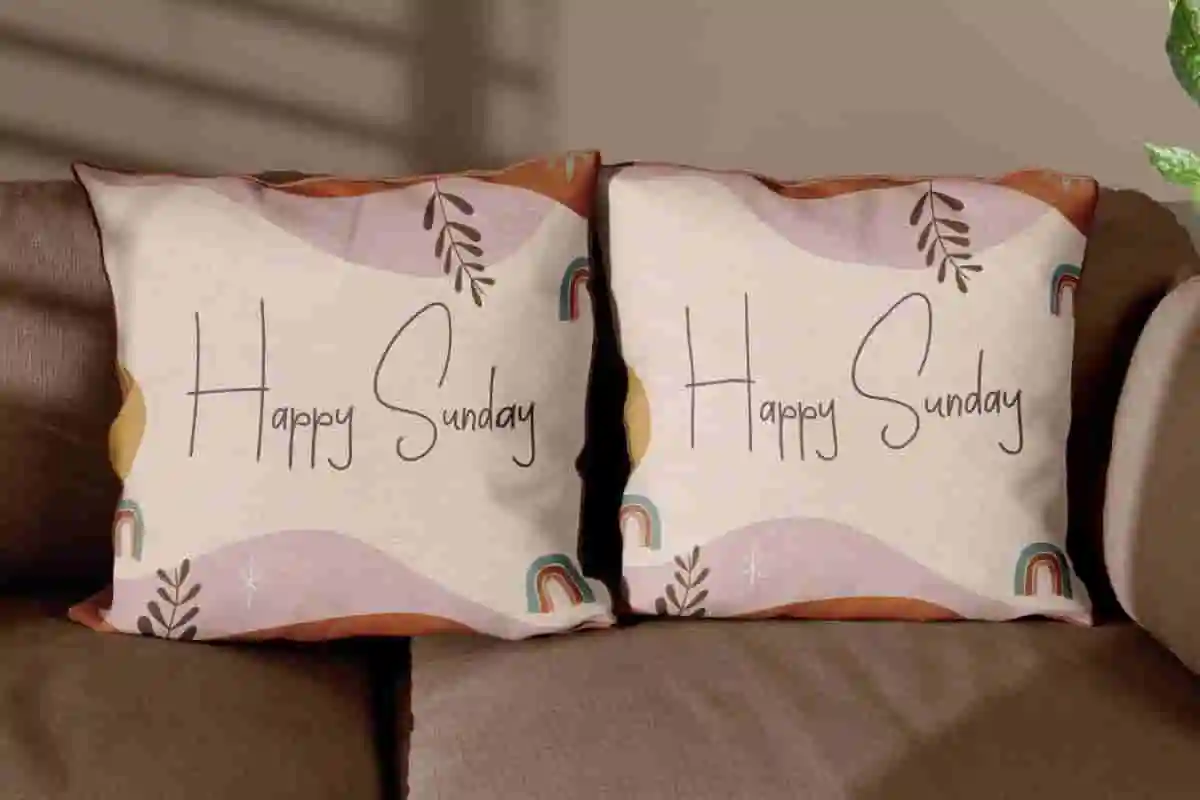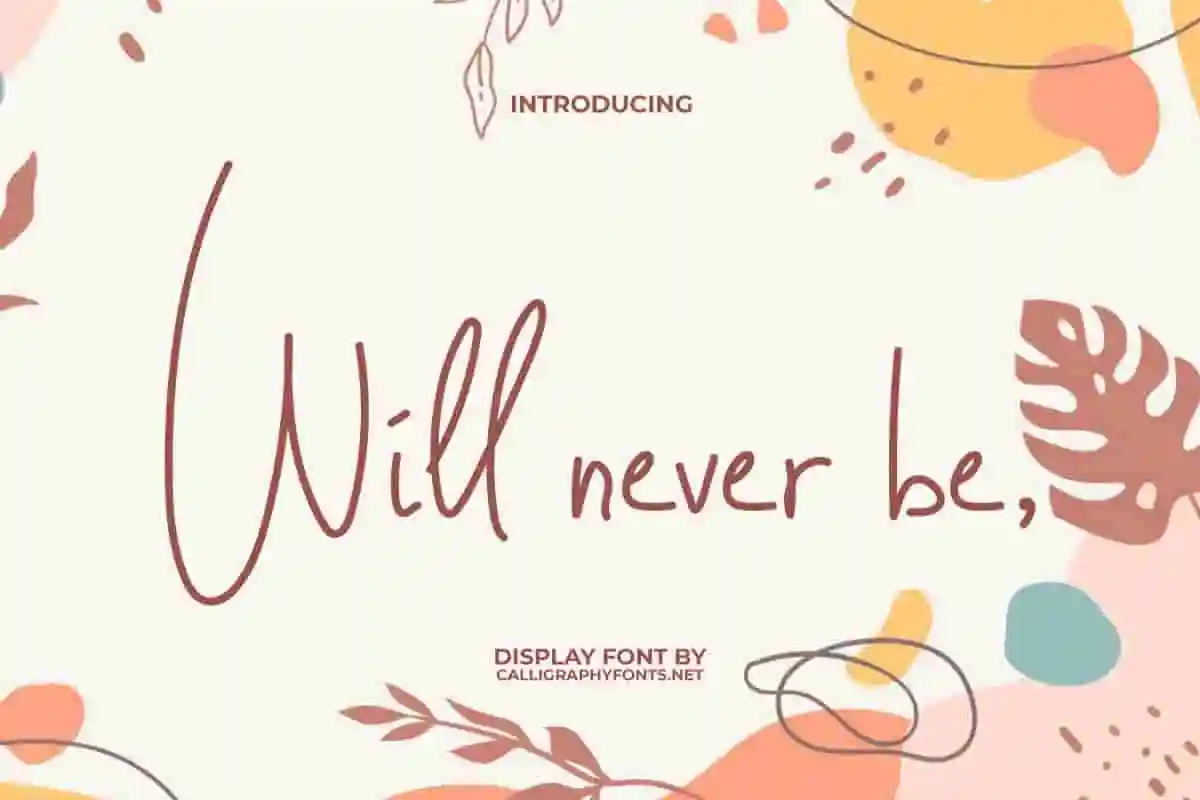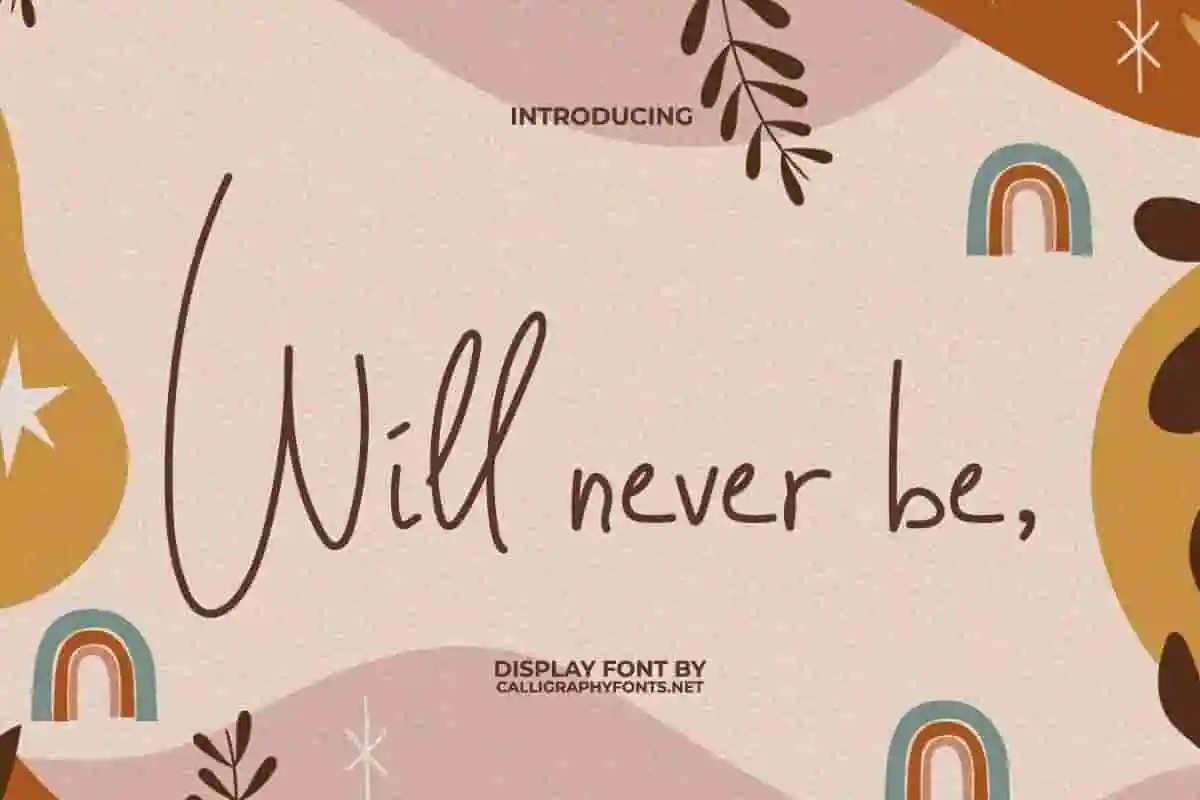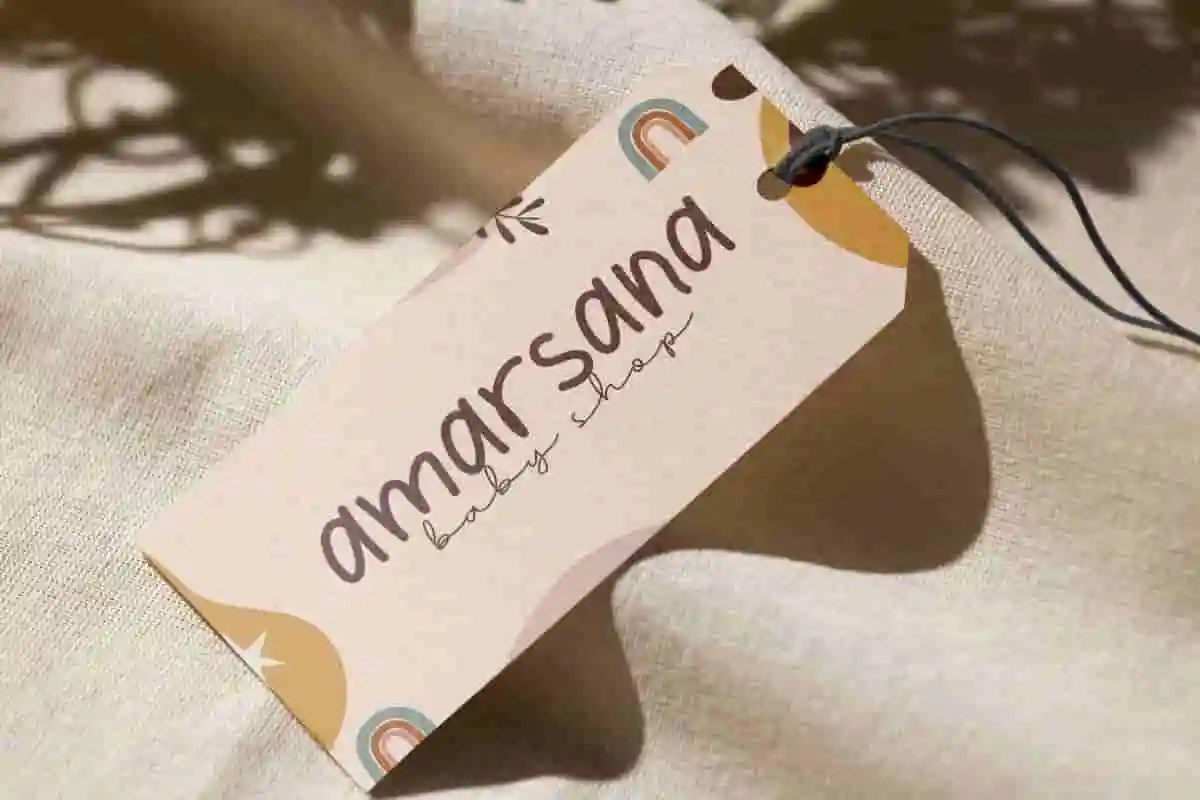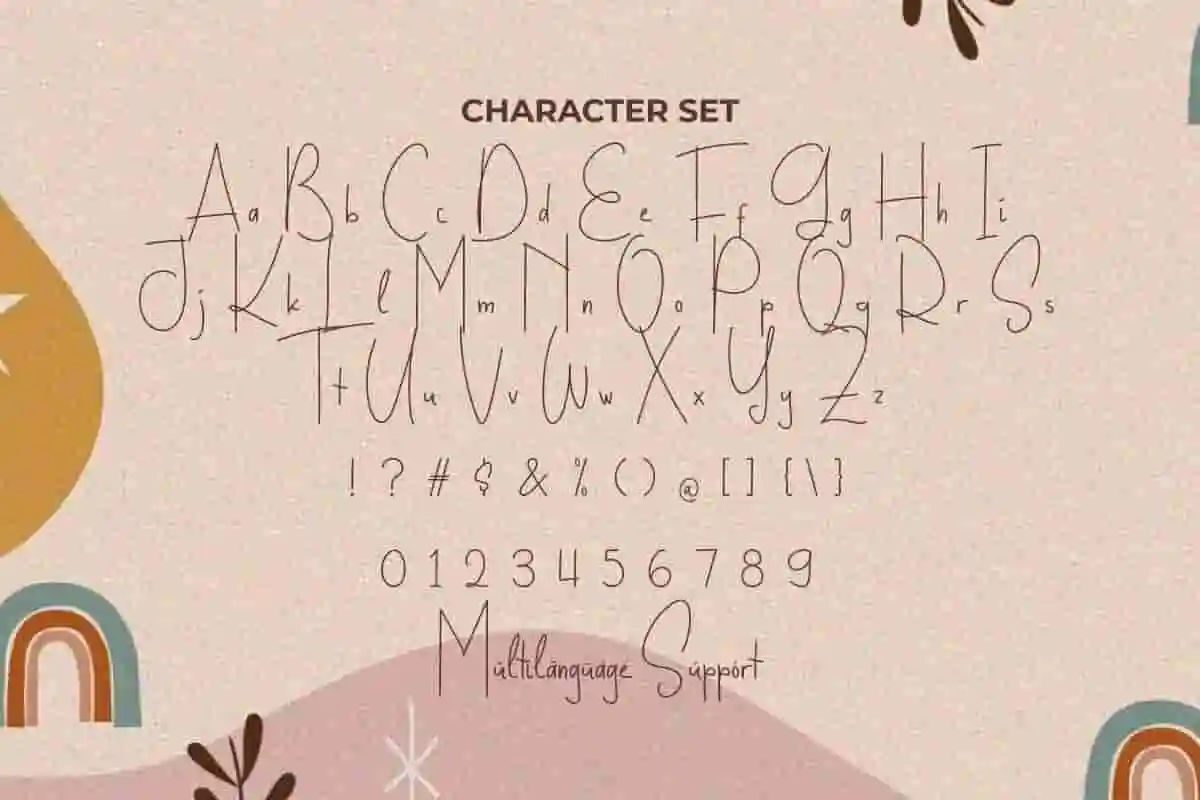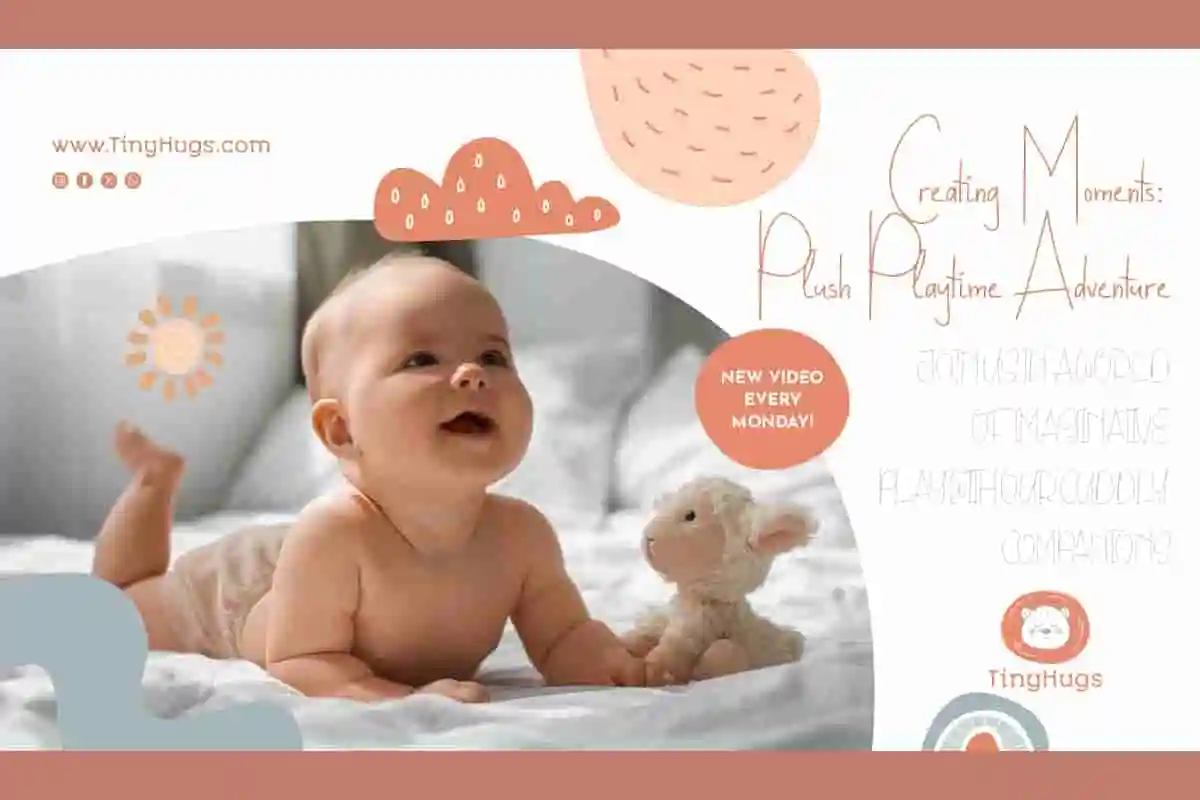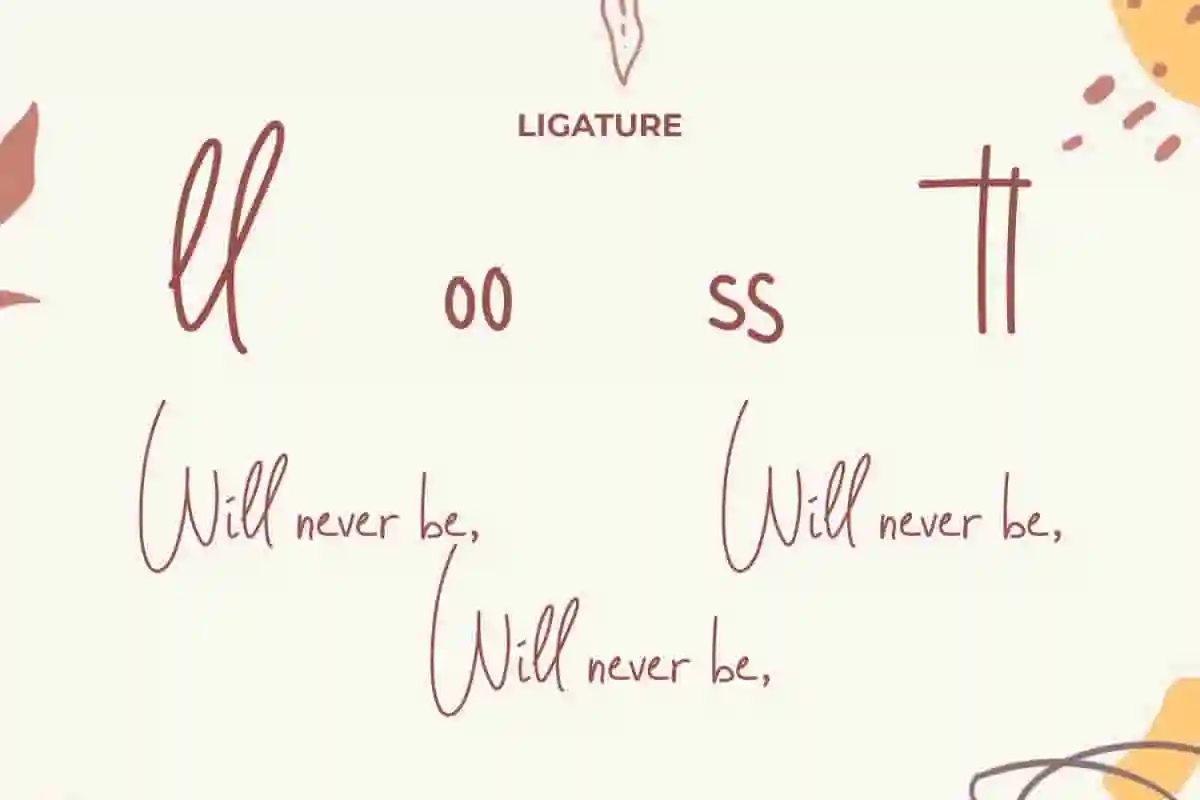
Will Never Be Font
Will Never Be Display Font is a playful display font derived from the idea of ​​minimalist yet attractive monoline handwriting. It can be used for advertising, baby brand, branding, craft and of course there’s a lot more you can do with this font style!
Will Never Be Font is a casual and children monoline script display font that also includes some ligatures (double letter combinations) to help the letters flow more naturally and give you more layout options. Perfect for banners, blogs, brochure, calendar, headers, invitation, logos, mockup, quotes, screen printing, social media design post, stationery, tag label, template, title, website, and many more.
Unleash the power of bold design with Will Never Be Display Font, a striking typeface created to make your projects unforgettable. With its edgy structure, confident strokes, and contemporary style, this display font is crafted to grab attention and communicate strength at first glance.
Perfect for logos, posters, branding, packaging, merchandise, album covers, headlines, event promotions, and social media graphics, Will Never Be Display Font adds personality and impact to any creative work. Its sharp yet stylish forms are ideal for projects that demand modern aesthetics with a bold voice.
Will Never Be Display Font is a very versatile typeface, having a clean and refined look, ready to add a warm and fun personal touch to your designs. Useful for accessories and gift, advertising, author, bakery, cafes, clothing brand, film, graphic designer, handicraft, home furniture, interior design, photography, publisher, restaurants, toy store, and much more.
Will Never Be Display Font comes with a complete set of Uppercase and Lowercase Basic Characters, Numbers,  Punctuation, Symbol and Ligatures. It is supported with multilingual characters and ready to use both on Windows machine or Mac with simple installations. It’s tested to work well in the Adobe Apps (Illustrator, Adobe InDesign, Adobe Photoshop) CorelDraw, and others. PUA Encode Characters means you can access all the characters easily – Fully accessible without additional design software.